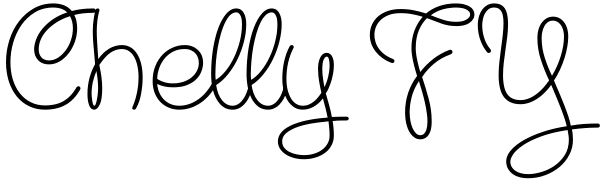
Chelly FY
With its friendly curves and ballpoint pen shapes, Chelly FY is a lovely script font. Generous, young and feminine, this font will certainly express all its freshness for girly designs, menu-boards, packaging or branding.